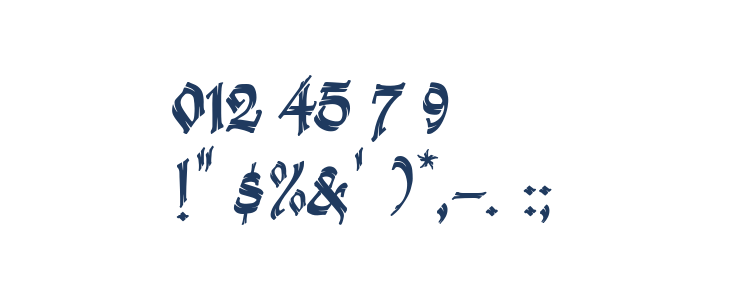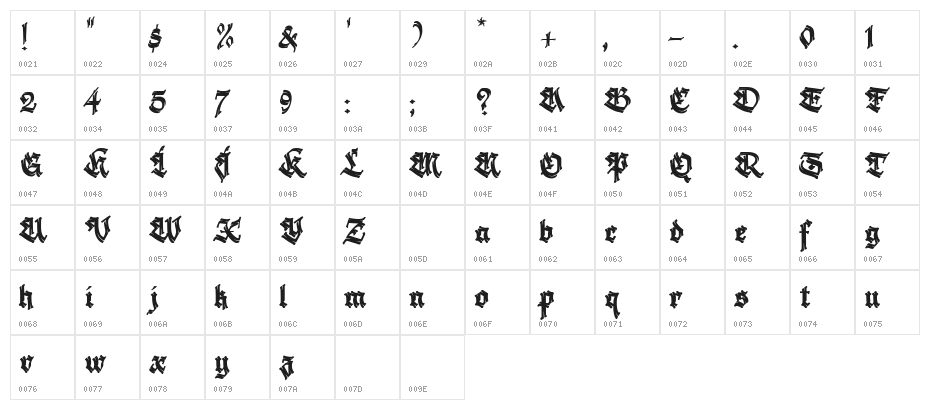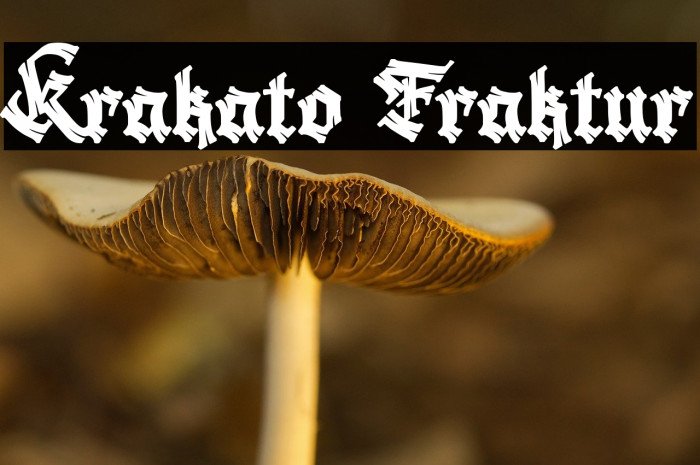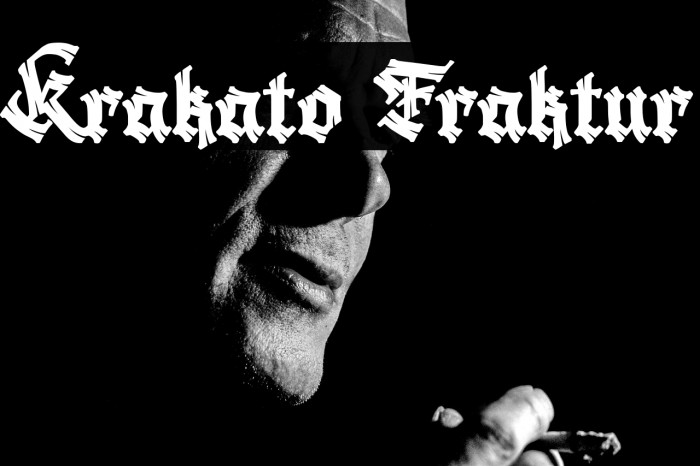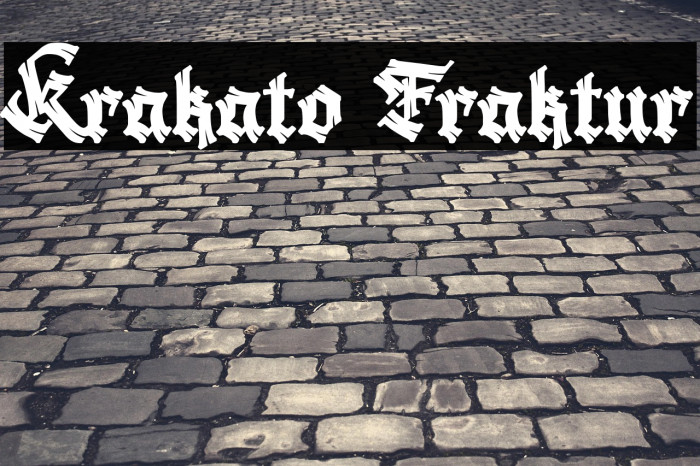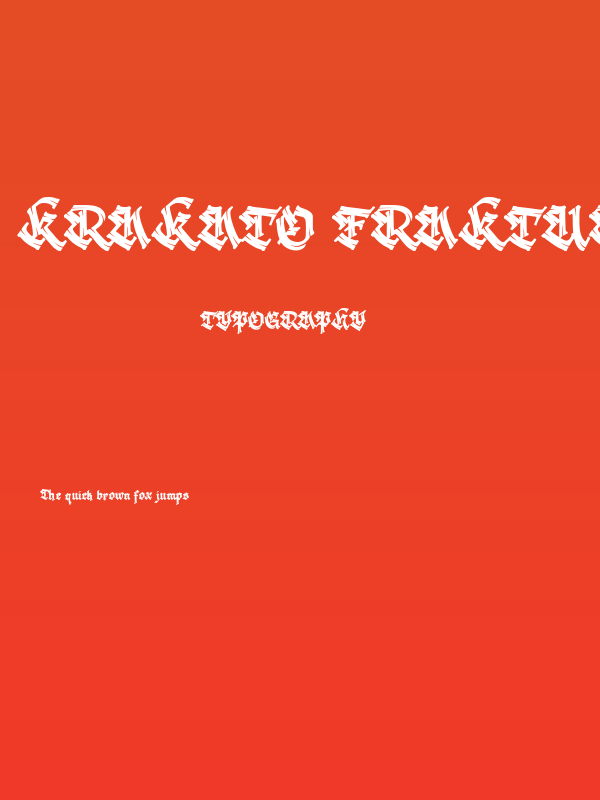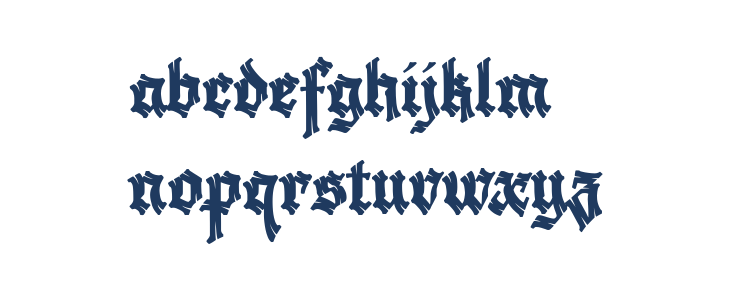
Krakato Fraktur Font
Krakato Fraktur Description
This font features a bold and intricate design, reminiscent of traditional blackletter styles. The characters are highly decorative, with sharp angles and elaborate flourishes that give it a dramatic and historical appearance. The uppercase letters are particularly ornate, while the lowercase letters maintain a consistent style with slightly less embellishment. The numerals and special characters follow the same intricate design, ensuring a cohesive look across all text. This font is ideal for projects that require a touch of elegance and historical flair, such as certificates, invitations, or branding for luxury products.
Proposed ProjectsIdeal for certificates, invitations, luxury branding, and historical-themed designs.